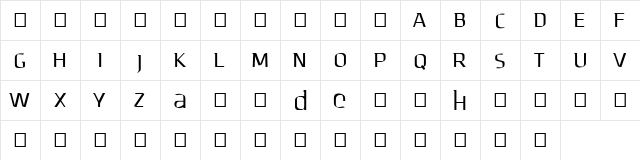
Redhead Regular
| Foundry | Murat Yegul |
| Designer | Murat Yegul |
Design Context for Redhead Typeface
Redhead takes a measured approach to typography — its balanced proportions and neutral character make it a reliable workhorse for both digital and print work.